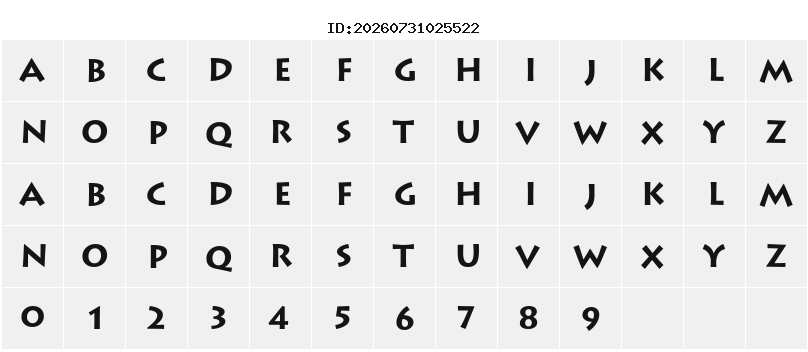
• Font Name: Litschi
• Font ID: Altsys Fontographer 4.0 Litschi Bold
• Full Font Name: Litschi Bold
• Version: Altsys Fontographer 4.0 24.8.1993
• PostScript Name: LitschiBold
About Litschi.ttf
Litschi.ttf is a modern, elegant sans-serif font designed for ultimate readability and visual harmony. Perfect for branding, headlines, web design, and print materials.